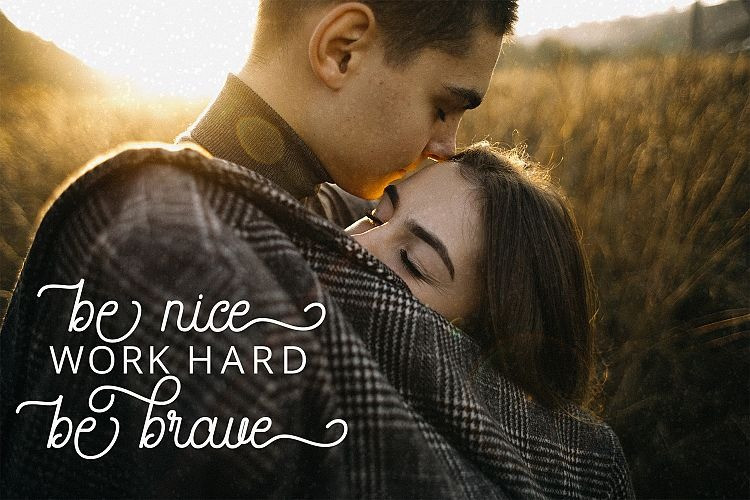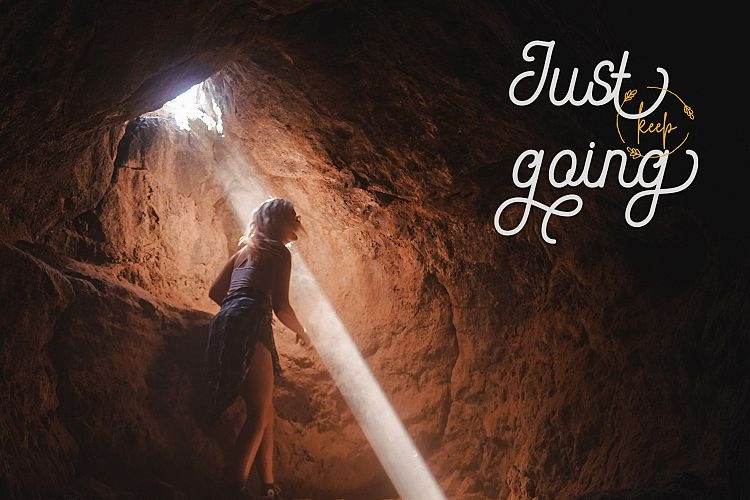
Ramovia Handwritten Font
Ramovia is an elegant font that gives designs a handcrafted yet modern feel. This clean handwritten looks great in both modern and classic designs!